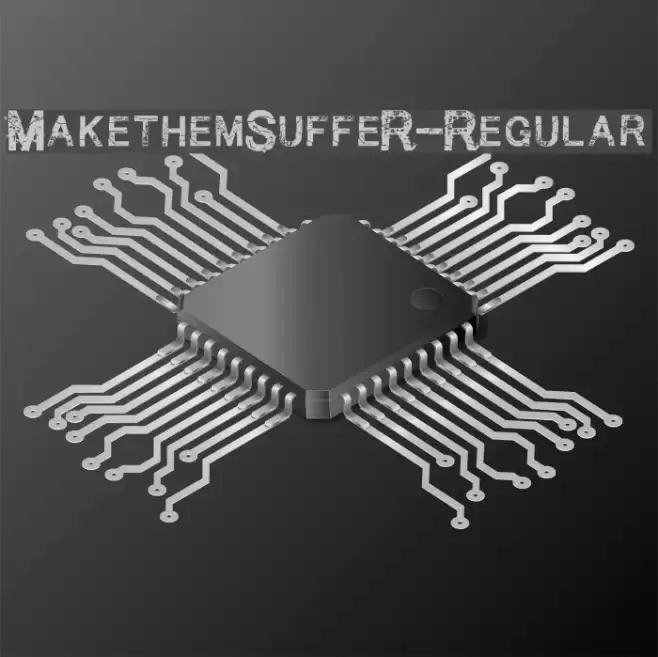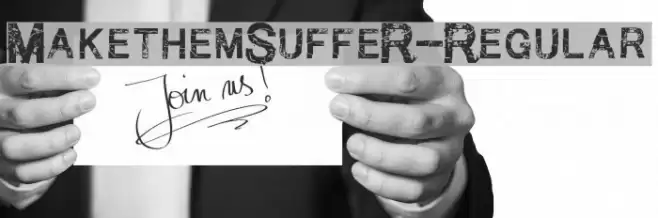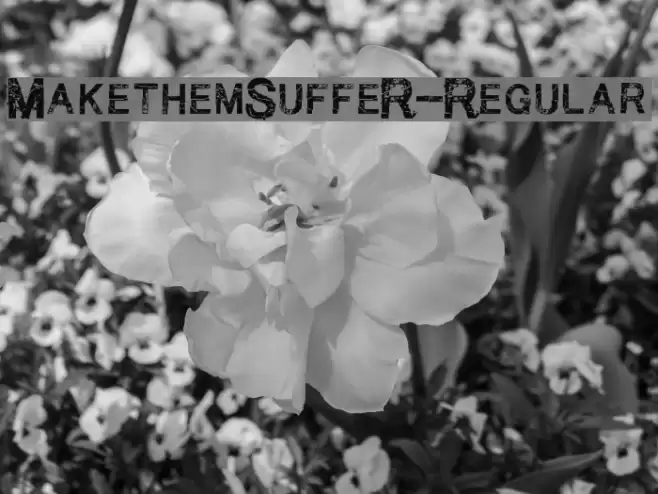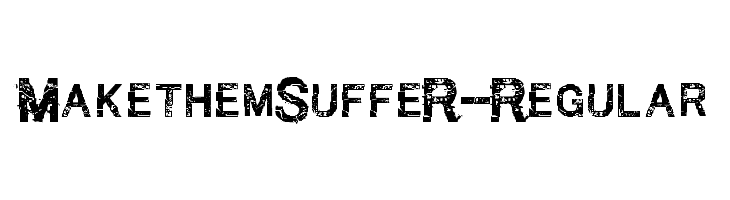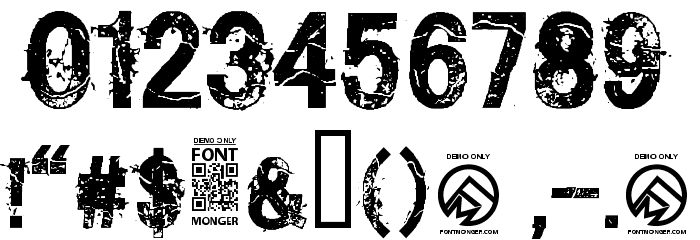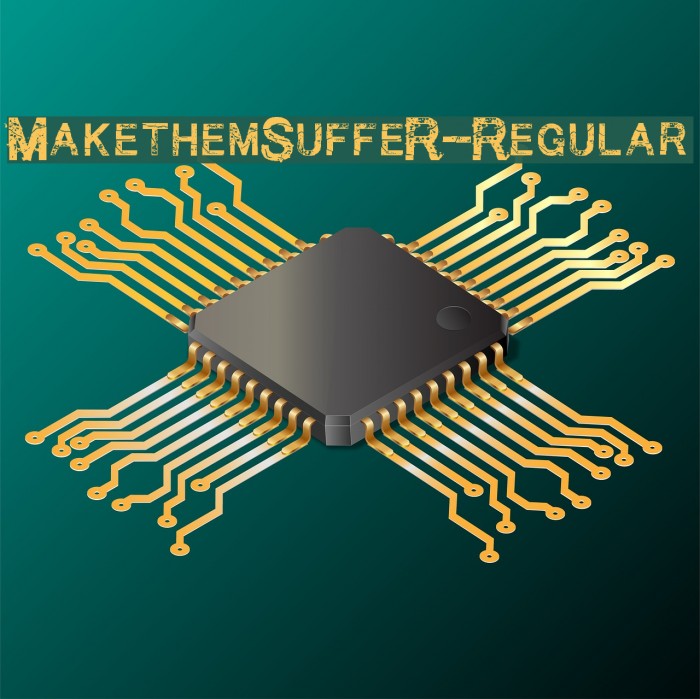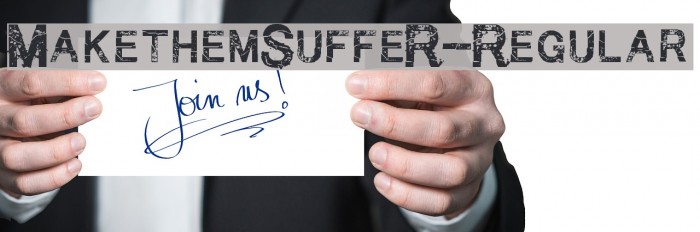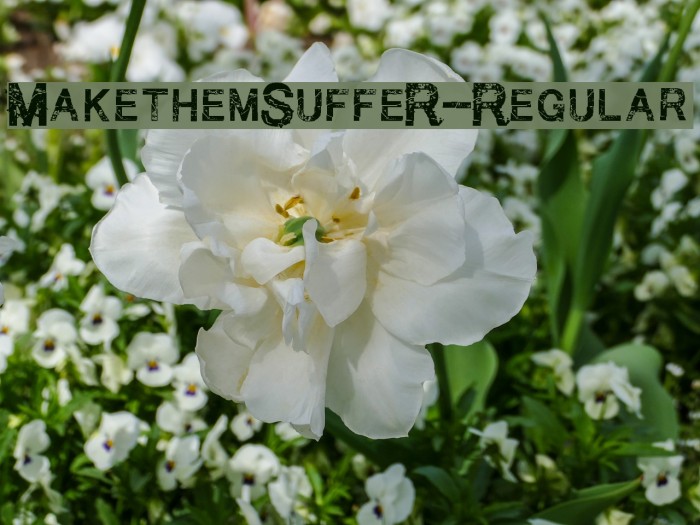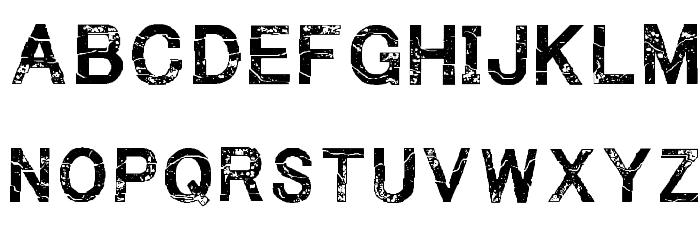
MakethemSuffeR-Regular Font
MakethemSuffeR-Regular Description
This font features a distressed, grunge style with a bold and rugged appearance. Each character is heavily textured, giving it a worn and weathered look, reminiscent of urban street art or vintage posters. The uppercase and lowercase letters maintain a consistent style, with rough edges and a slightly uneven baseline, adding to the chaotic and dynamic feel. Numbers and special characters follow the same aesthetic, ensuring a cohesive look across all text elements. This font is ideal for projects that aim to convey a sense of rebellion, edginess, or a gritty, industrial vibe.
A bold, distressed font with a grunge, urban aesthetic from Fancy fonts.
- Proposed Projects: Perfect for album covers, posters, streetwear branding, and edgy graphic designs.
- Overall Style: Grunge, Urban, Distressed